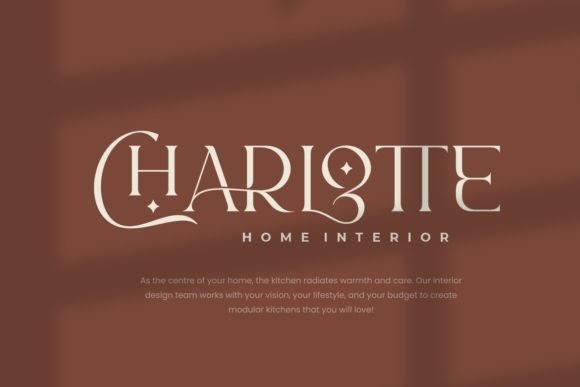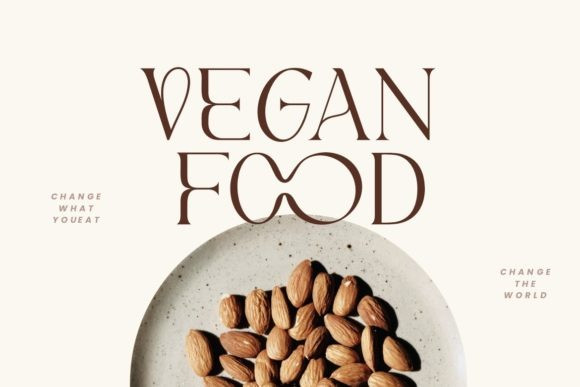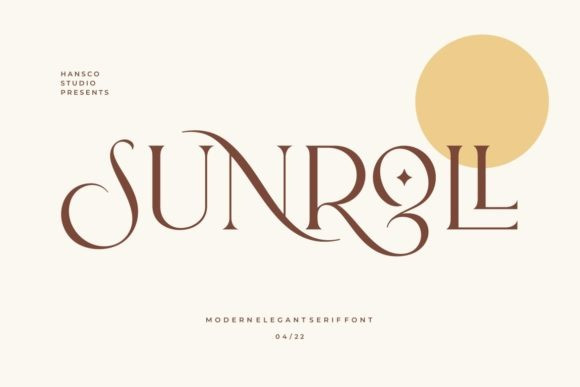
Sunroll Font
Sunroll Font is a thin lettered and delicate serif font. This font is PUA encoded which means you can access all of the glyphs and swashes with ease!. Fall in love with its incredibly versatile style and use it to create spectacular designs!